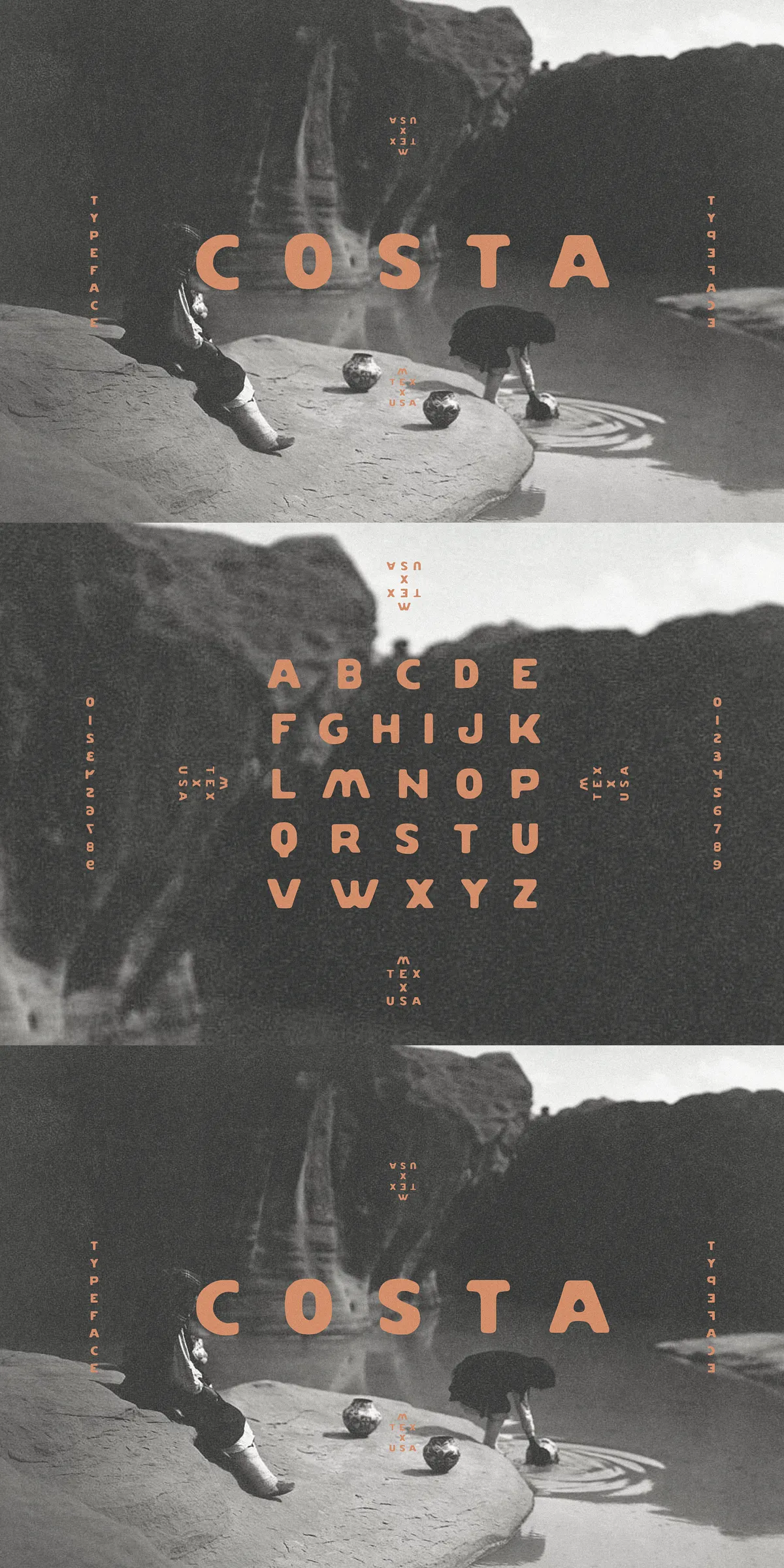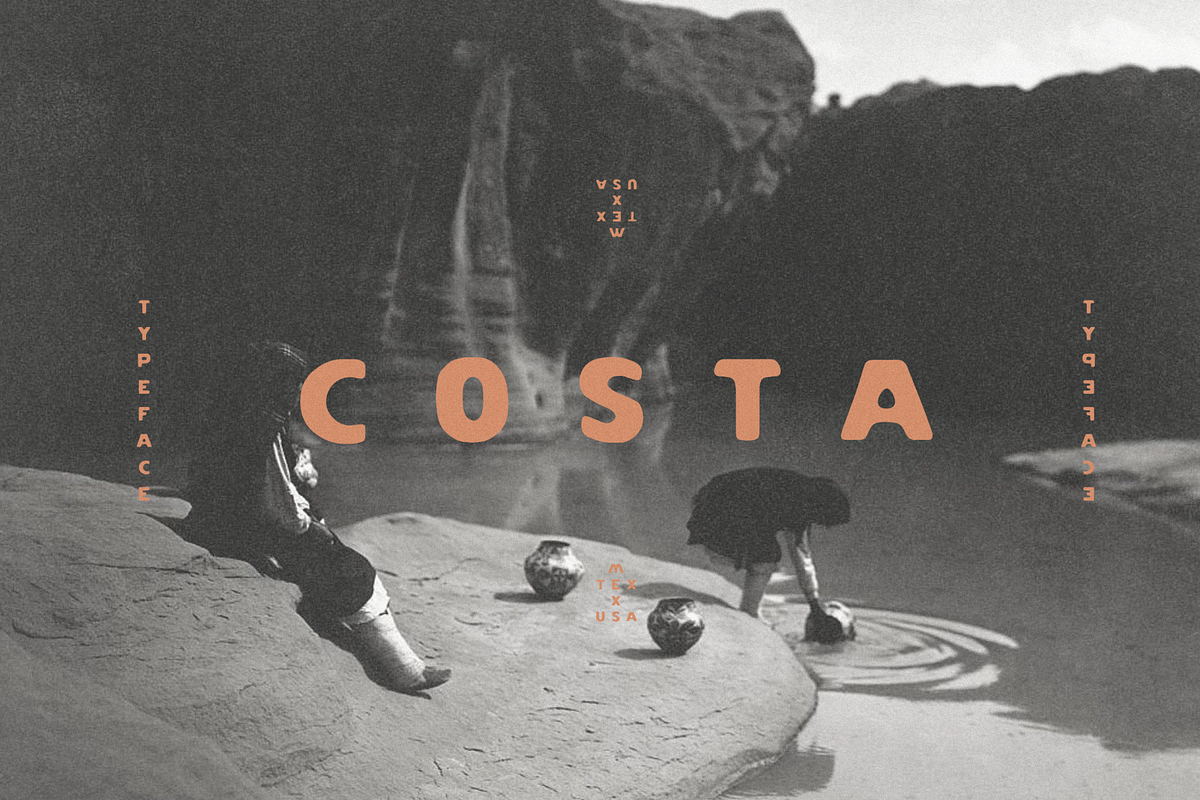
Costa Typeface
Feel the warmth of the Pacific sun and the rhythm of coastal life with Costa — a hand-drawn display typeface that captures the raw, authentic spirit of village signage in Mexico’s sun-scorched shores. Each letter is crafted to resemble paint splattered across worn wood, sun-bleached walls, and weathered storefronts. This isn’t just a font — it’s a glimpse into the soul of the shoreline, where tradition, simplicity, and character collide.
Channel the Authentic Vibe of Coastal Mexico
Drawn from Life, Not Screens
Unlike digital fonts that mimic hand-drawn styles with rigid precision, Costa is rooted in real-world references: crumbling adobe signs, handmade market boards, and vibrant shop fronts along dusty coastal roads. The strokes vary slightly in pressure, the letters lean with natural imperfection, and the spacing feels alive — like a painter’s brush on ancient wood. It breathes. It speaks. It tells a story before a word is even read.
Every glyph has been meticulously designed to feel hand-painted — from the bold, tapered downstrokes to the delicate, uneven flourishes. The result? A typeface that doesn’t just sit on a page — it *lives* on it.
Master 11 Dynamic Variants — All Built for Impact
From Rustic to Refined: A Font Family That Adapts
Costa is more than one style — it’s a full typographic ecosystem, offering 11 powerful variants to suit a wide range of projects, from packaging labels to editorial headlines. Whether you want bold presence or subtle charm, Costa delivers with unmatched versatility.
• Costa Regular — The core voice. Crisp, clear, and instantly recognizable. Ideal for website headers, logo treatment, and branding that demands authenticity.
• Costa Outline — Minimalist strength through negative space. Perfect for logos, icons, and sleek modern layouts with a vintage edge.
• Costa Eroded — Weathered by time and salt. Evokes age, history, and the touch of the ocean breeze. Use for retro posters, travel branding, or coastal festival flyers.
• Costa Condensed — Tight, bold, and unapologetically compact. Great for space-limited designs, magazine layouts, or minimalist packaging.
• Costa Script — Flowing, expressive, and personal. Designed for handwritten notes, invitations, or brand storytelling that needs emotional resonance.
• Costa Bold — Maximum impact. When you need a message to pop, Costa Bold delivers with commanding presence and undeniable character.
• Costa Slim — Elegant and fine. Perfect for product labels, wine tags, or design work demanding refined structure.
• Costa Stencil — Mimics spray-painted signage. Adds grit, edge, and urban coastal energy to posters, t-shirts, and streetwear branding.
• Costa Mix — A hybrid of hand-drawn textures and structured forms. Combines the best of both worlds — expressive and readable.
• Costa Italic — A graceful counterpart to Costa Regular. Ideal for subtitles, emphasis, and narrative-driven design.
• Costa Light — Delicate, airy, and soft. Best used in editorial work, book covers, or soft branding with a touch of sophistication.